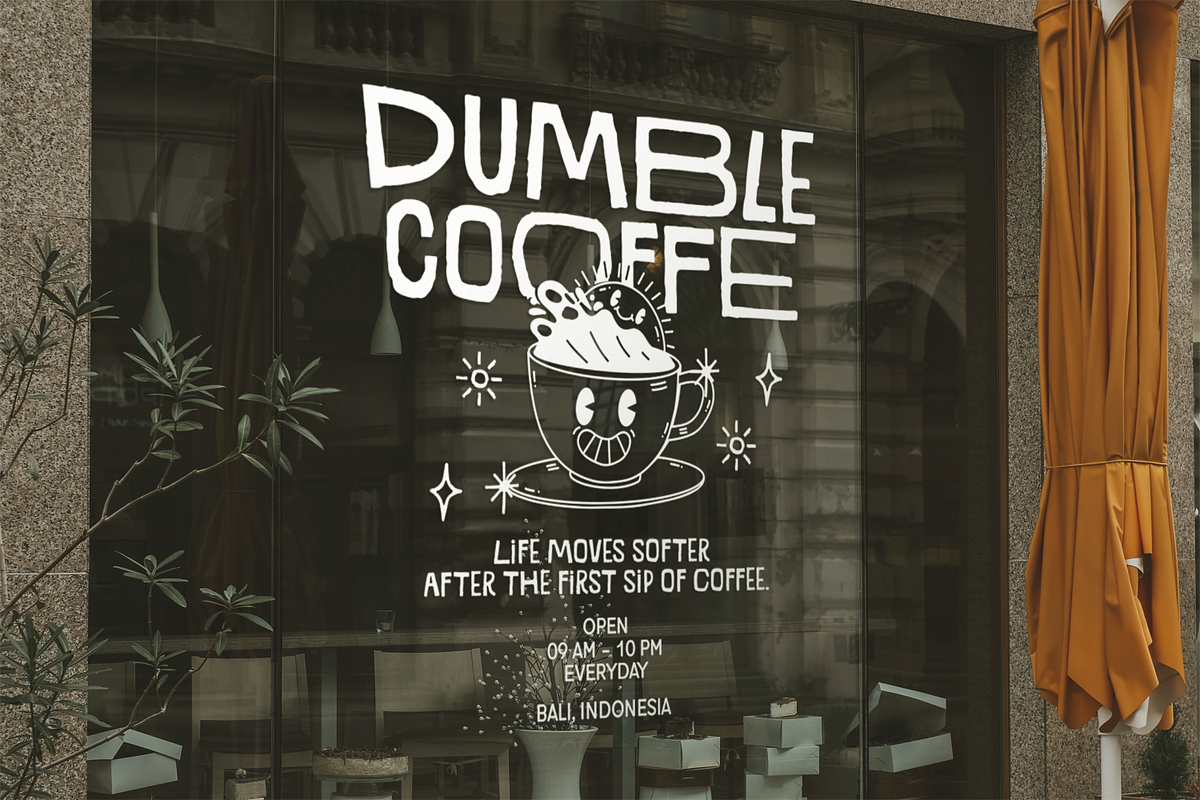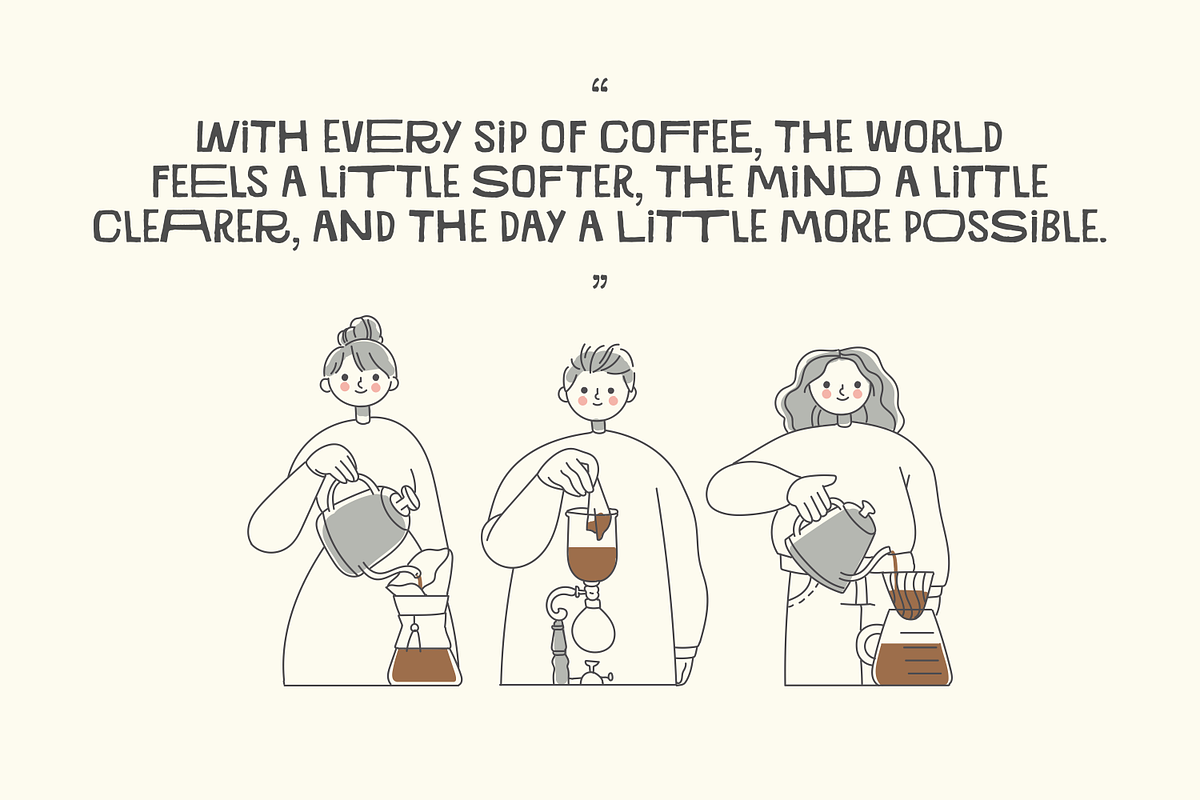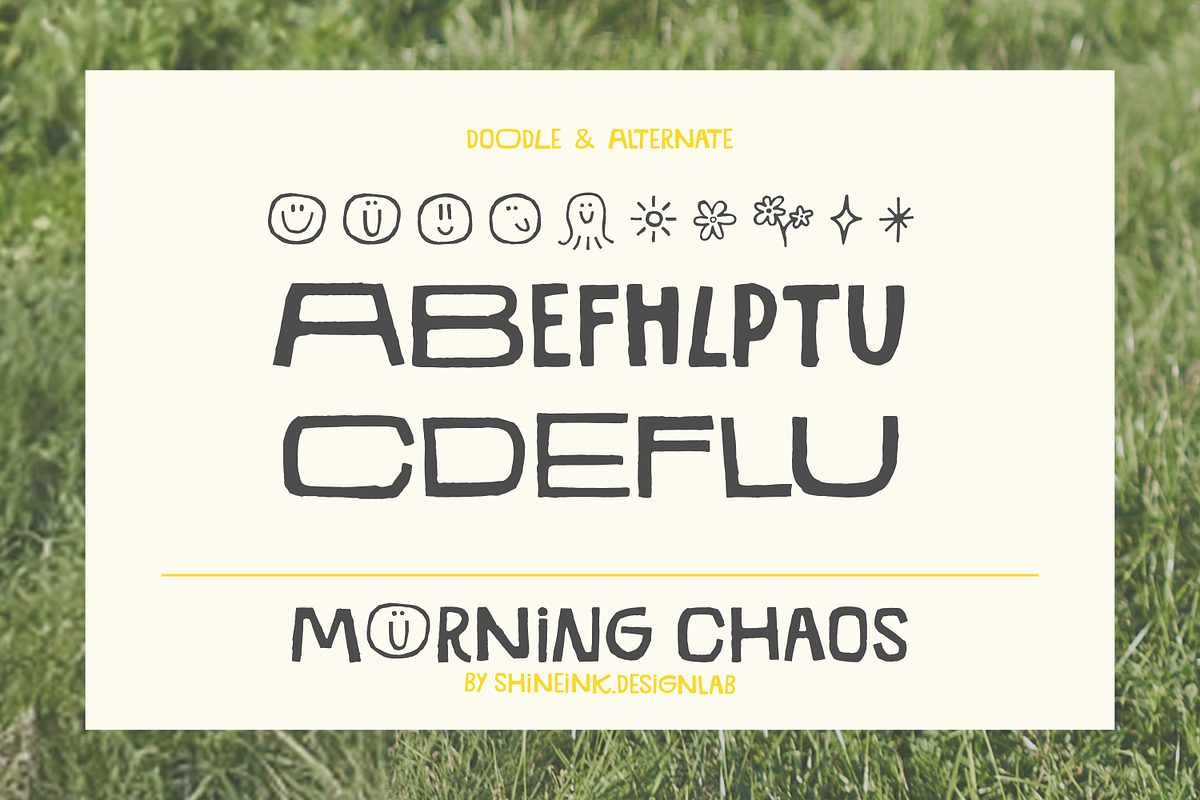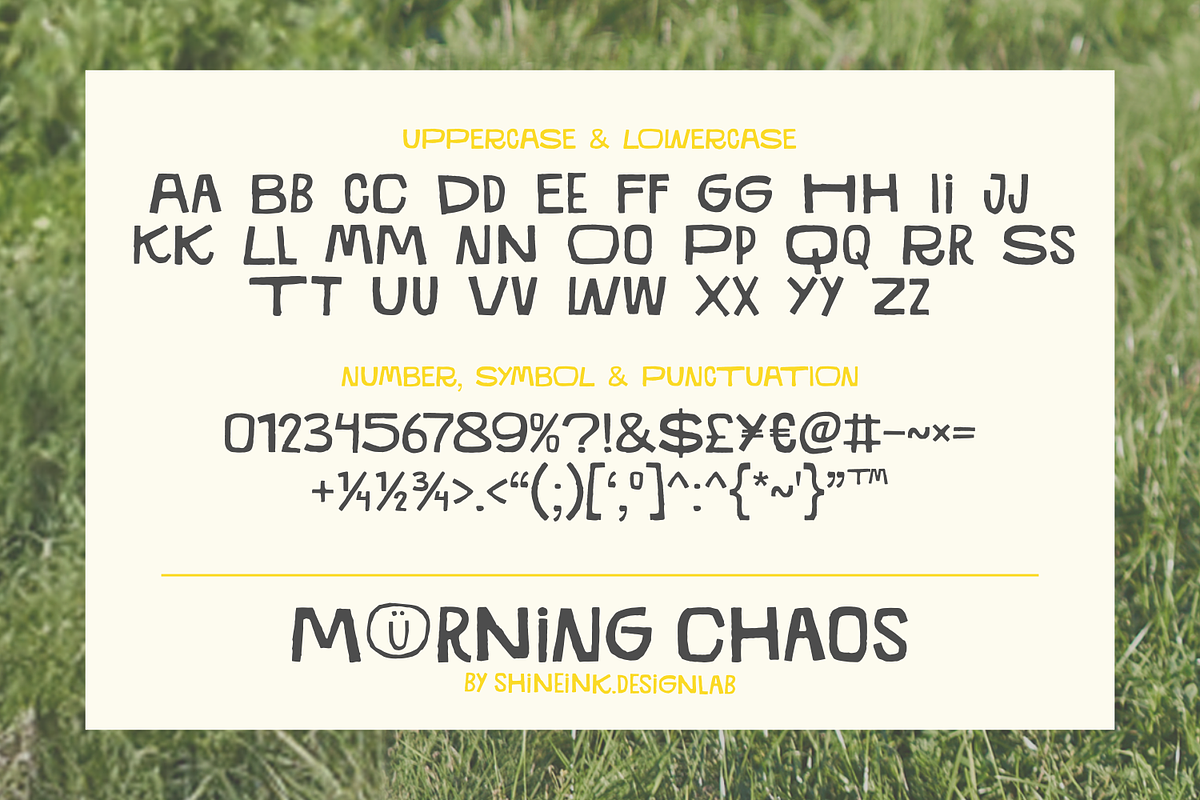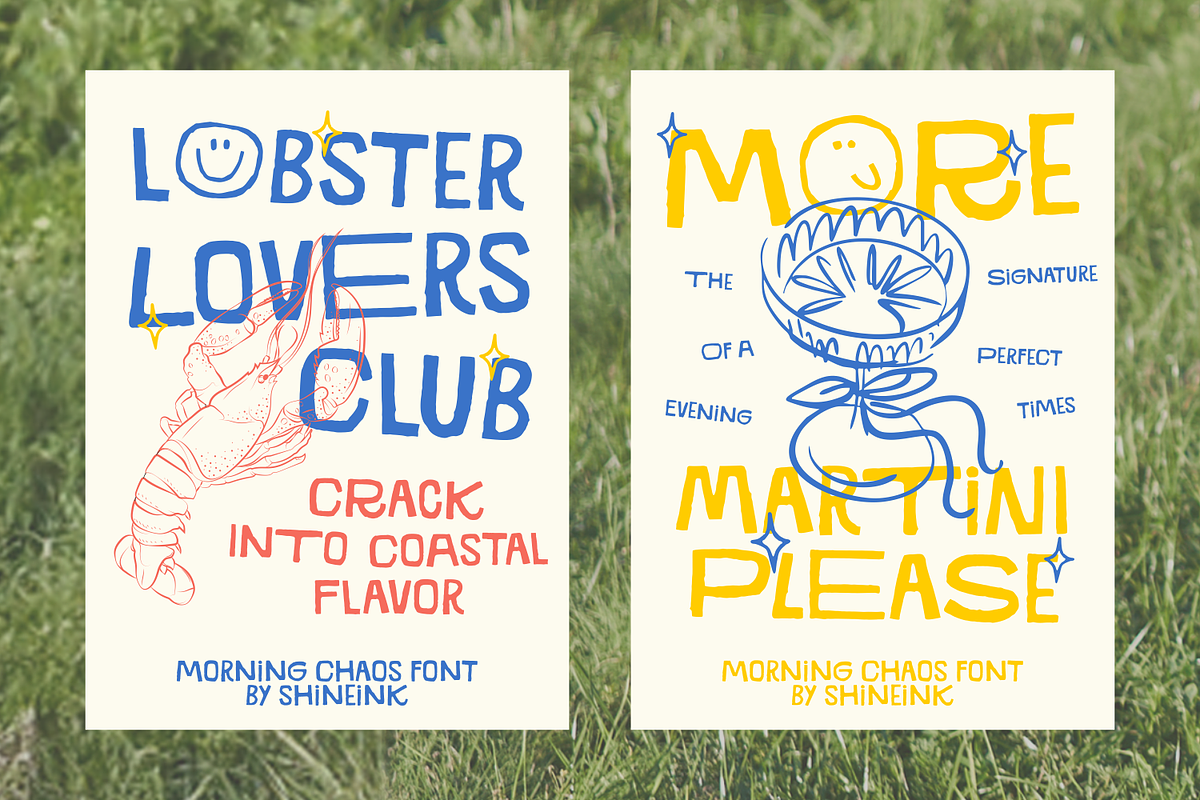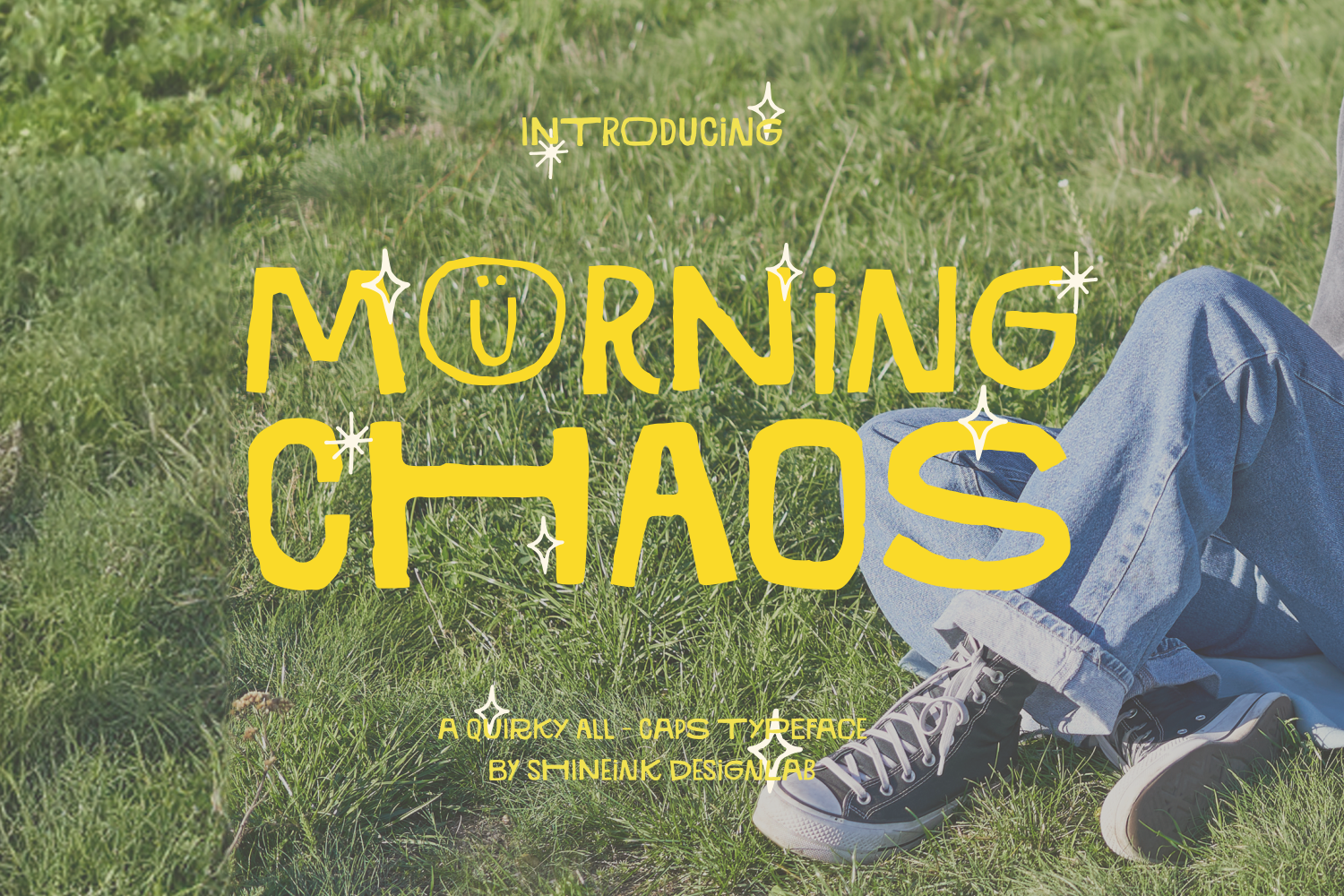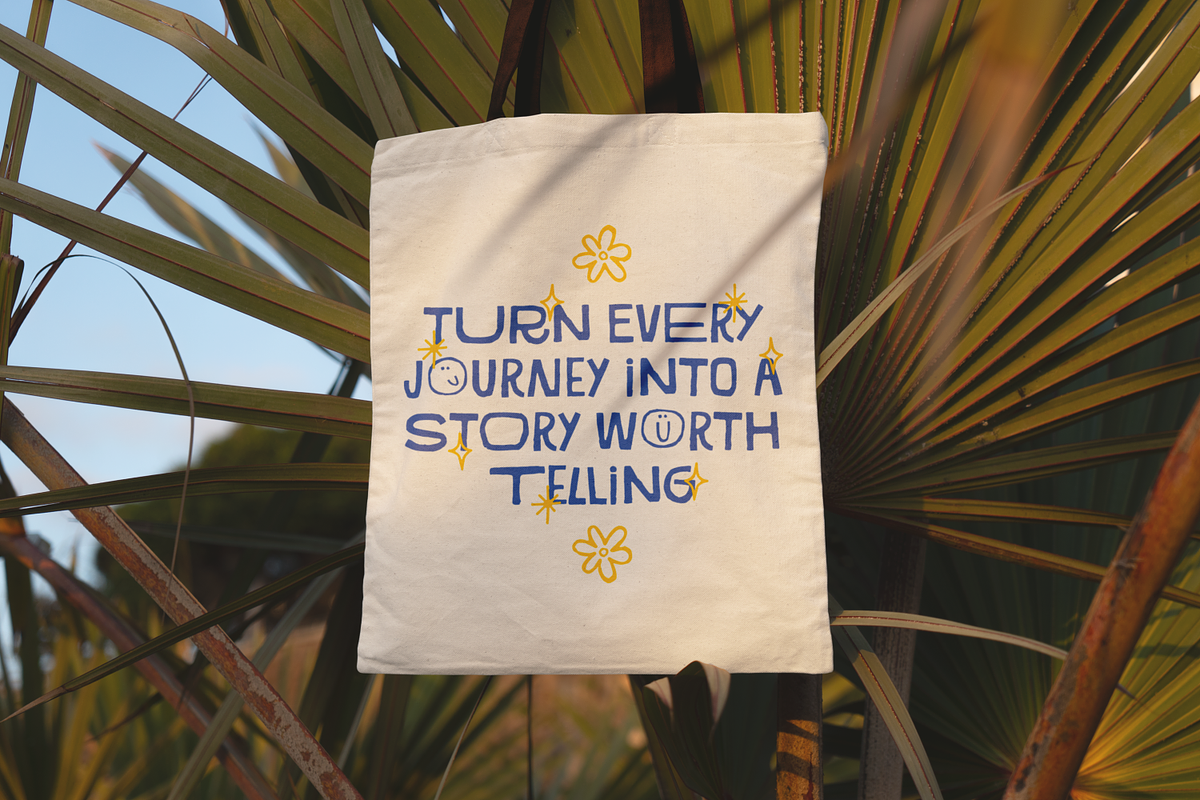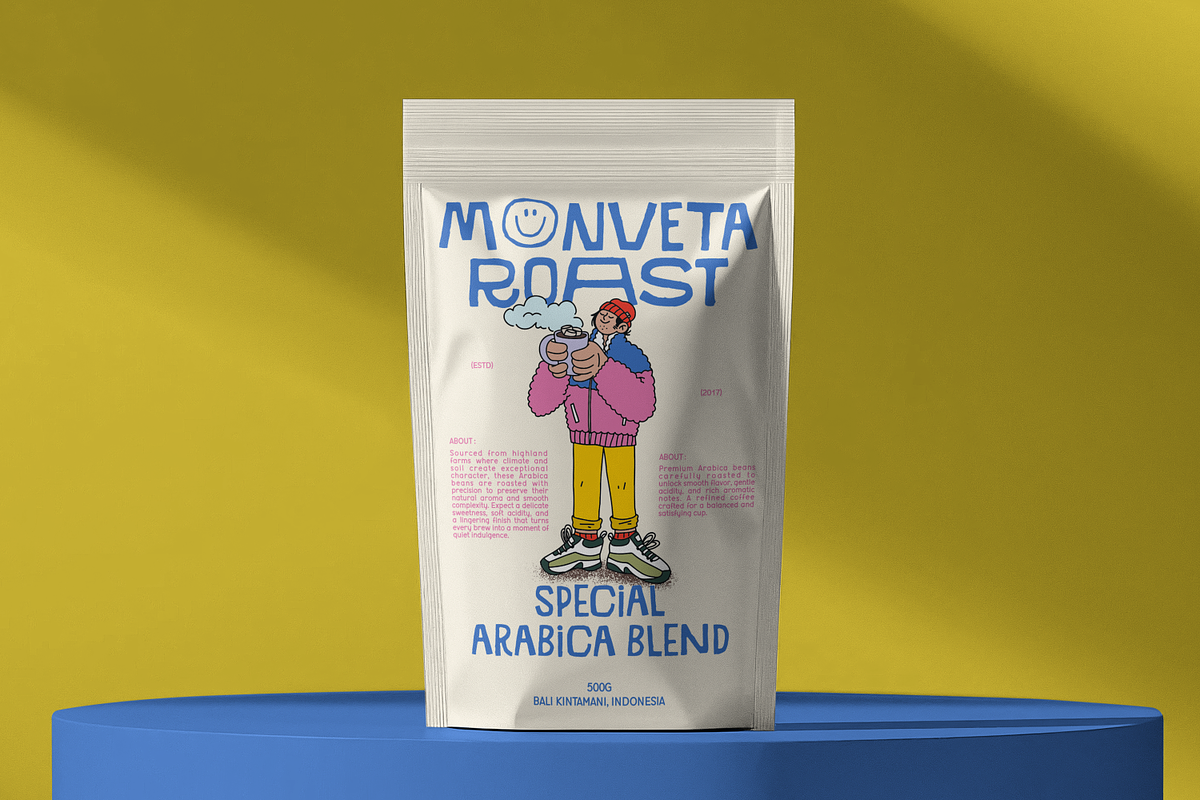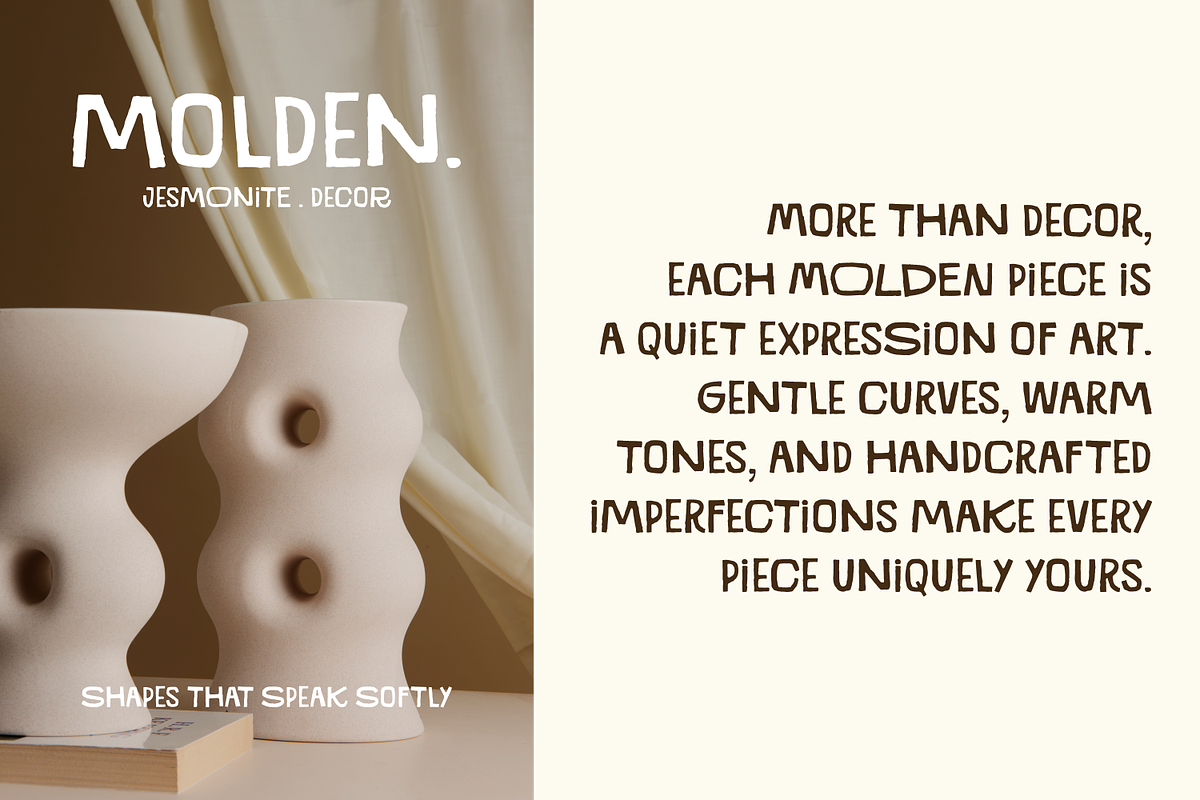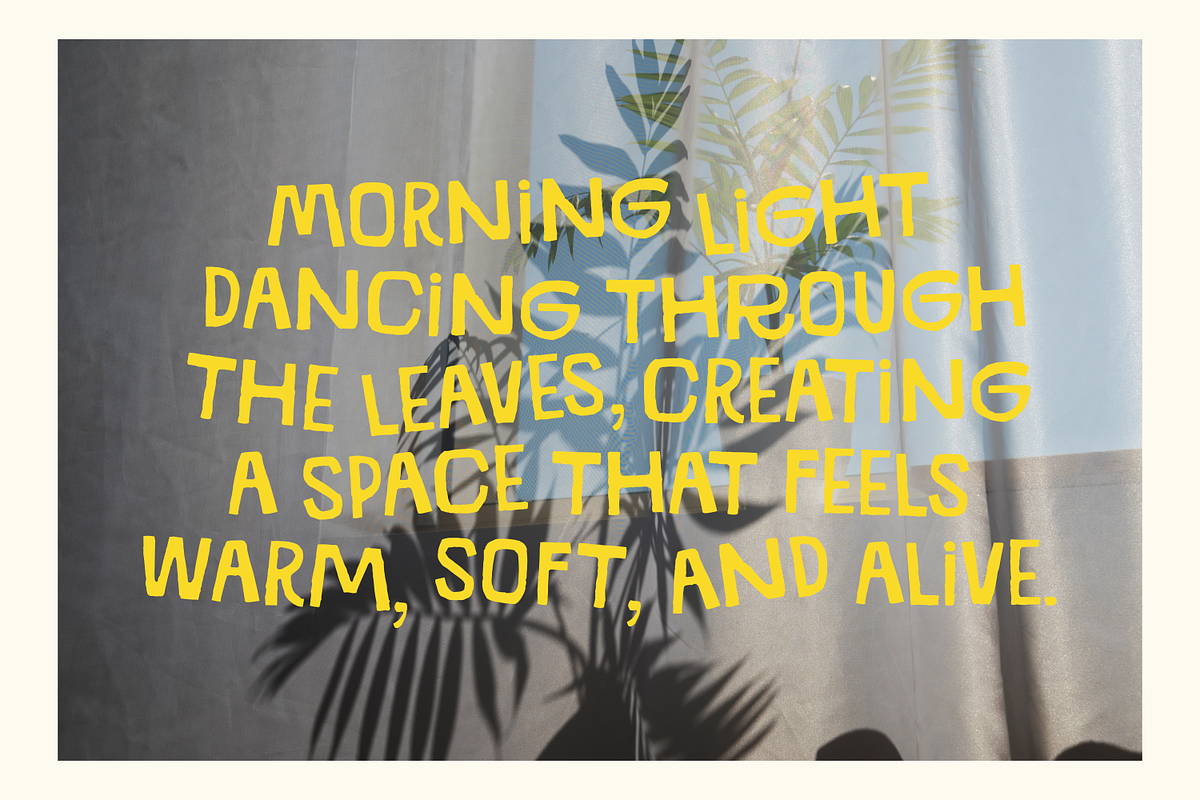
Morning Chaos - Quirky Typeface
I'm present to you, a quirky, bold, and playful all-caps typeface, called Morning Chaos!
Morning Chaos is a bold, quirky, and expressive all-caps display typeface designed to bring a fresh burst of energy into your creative work. Inspired by carefree mornings, spontaneous doodles, and playful imperfections, this font captures a lively and joyful personality that instantly stands out.
Every letter in Morning Chaos is uniquely crafted with irregular shapes and hand-drawn character, creating a natural, organic feel that breaks away from rigid and overly polished typography. The slightly uneven forms and fun details give it a human touch making your designs feel more alive, relatable, and full of charm.
- Lowercase and Uppercase
- Multiple Languages Supported
- Unique Alternate & Doodles